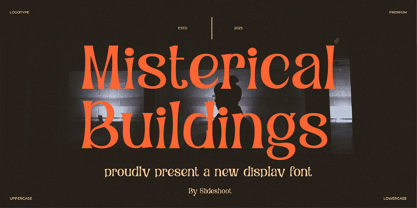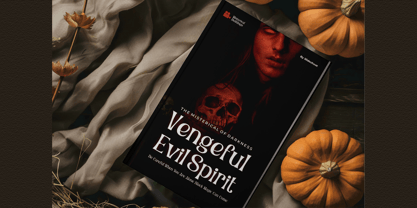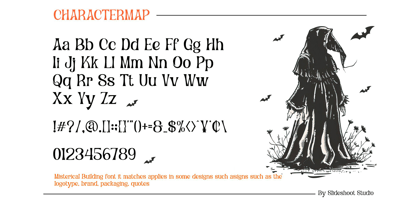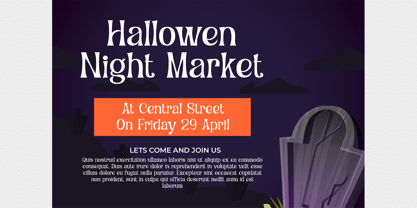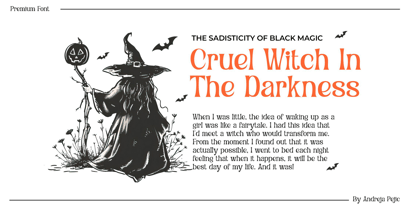
Misterical Buildings
by Slide Shoot
The Misterical Buildings Font Family was designed by Ahmad Riqi and published by Slide Shoot. Misterical Buildings contains 1 styles. More about this family
Introducing Misterical Buildings is Display Font is a modern, trendy, bouncy and cute display font. It has a unique character with wood theme. It is perfect to be combined with invitation card designs, company logos, movie titles, movie names, business cards, book titles, brand names and various other designs.
Designers: Ahmad Riqi
Foundry: Slide Shoot